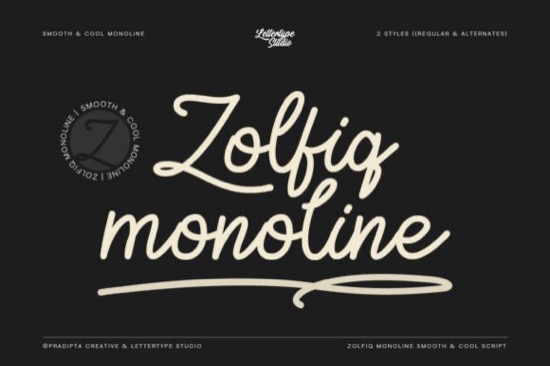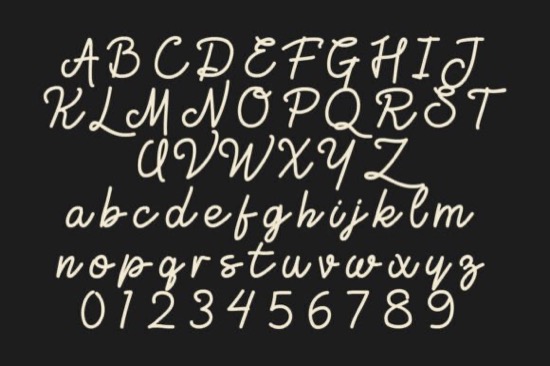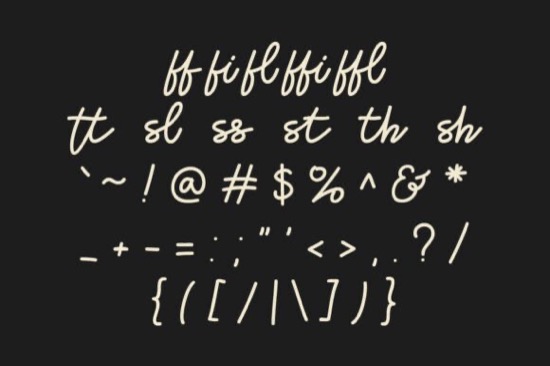
Zolfiq Font
Zolfiq is a modern grotesque handwritten font consisting of a modern monoline style. These fonts, characterized by consistent line thickness, offer a clean and sophisticated aesthetic that enhances various design projects. From branding and logos to wedding invitations and digital media, Their simplicity ensures readability, while their unique designs add a personal touch to any creation. Embrace the timeless appeal of monoline script fonts to elevate your design endeavors.
Zolfiq Monoline Handwritten Font